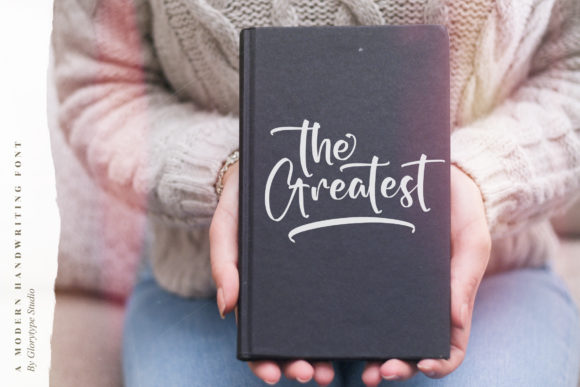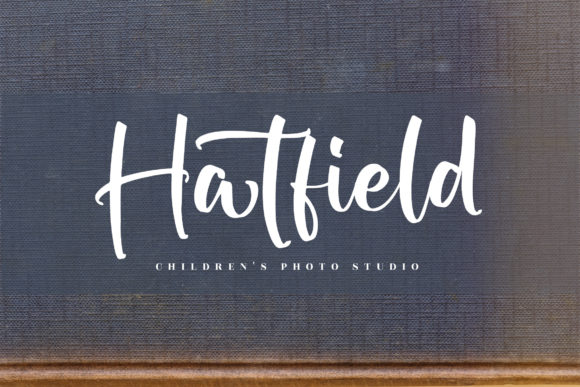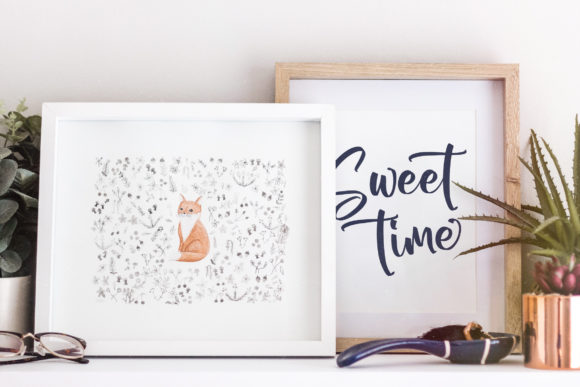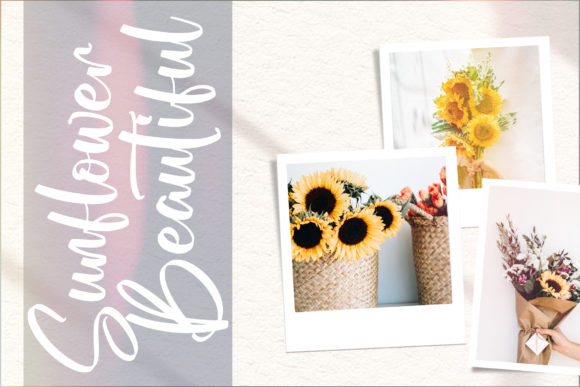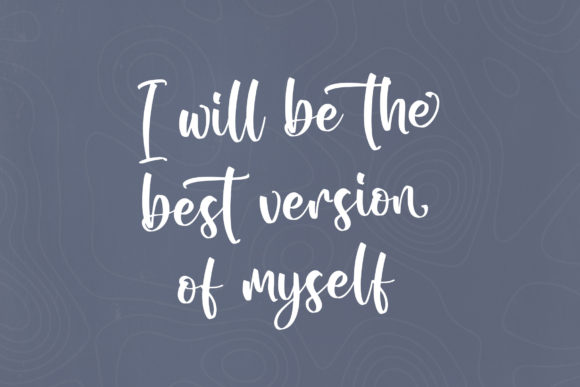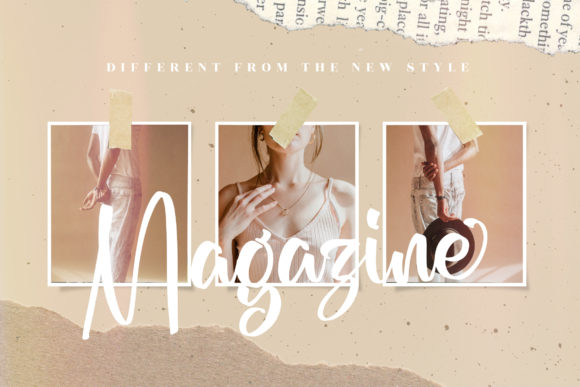
Introducing Halfmoon Font: The Perfect Addition to Your Design Arsenal
In the world of typography, a font can make or break a design. If you’re a designer, crafter, or DIY enthusiast looking for a trendy and delicate script font to elevate your projects, look no further than Halfmoon Font. This beautiful font is suitable for a wide range of applications, from logos and branding projects to homeware designs, product packaging, and more.
What is Halfmoon Font?
Halfmoon Font is a stunning script font that exudes elegance and sophistication. Its delicate strokes and intricate details make it perfect for designs that require a touch of refinement. Whether you’re creating a logo, a poster, or a social media graphic, Halfmoon Font is sure to impress.
Key Features of Halfmoon Font
- Trendy and Delicate: Halfmoon Font boasts a modern and dainty design that’s perfect for creating visually appealing graphics.
- Versatile: This font is suitable for a wide range of projects, including logos, branding projects, homeware designs, product packaging, mugs, quotes, posters, and more.
Why Choose Halfmoon Font?
With so many fonts available, why choose Halfmoon Font? Here are just a few reasons why designers and crafters love this font:
- Ease of Use: Halfmoon Font is incredibly easy to use, even for those who are new to design. The PUA encoding makes it simple to access all the glyphs and swashes, so you can focus on creating stunning designs.
- High-Quality Design: Halfmoon Font is designed with high-quality and precision in mind. The delicate strokes and intricate details make it perfect for creating professional-looking designs.
- Unique and Eye-Catching: Halfmoon Font is a unique and eye-catching font that will set your designs apart from the crowd. Its delicate design makes it perfect for creating stunning graphics that will grab attention.
How to Use Halfmoon Font in Your Designs
Halfmoon Font is incredibly versatile and can be used in a wide range of design projects. Here are just a few ideas to get you started:
- Logos and Branding Projects: Use Halfmoon Font to create stunning logos and branding materials that will elevate your business.
- Homeware Designs: Add a touch of elegance to your homeware designs, such as stationery, gift tags, and more.
- Product Packaging: Use Halfmoon Font to create eye-catching product packaging that will stand out on store shelves.
- Mugs and Quotes: Create stunning mugs and quotes that will make perfect gifts or personal items.
- Posters and Social Media Graphics: Use Halfmoon Font to create stunning posters and social media graphics that will grab attention.
Tips and Tricks for Getting the Most Out of Halfmoon Font
Here are a few tips and tricks to help you get the most out of Halfmoon Font:
- Experiment with Different Sizes: Halfmoon Font looks great in a variety of sizes, so don’t be afraid to experiment and find the perfect size for your design.
- Pair with Other Fonts: Halfmoon Font pairs well with a variety of other fonts, so try pairing it with a bold font for a striking contrast.
- Use the Swashes: The swashes in Halfmoon Font are designed to add a touch of elegance to your designs. Don’t be afraid to use them to add a personal touch.
Halfmoon Font is a stunning script font that’s perfect for designers, crafters, and DIY enthusiasts. Its delicate design, versatility, and PUA encoding make it a must-have for any design arsenal. Whether you’re creating logos, branding projects, homeware designs, or more, Halfmoon Font is sure to elevate your designs and help you create stunning graphics that will grab attention.